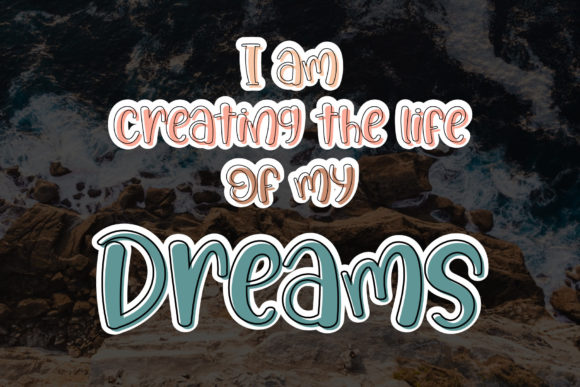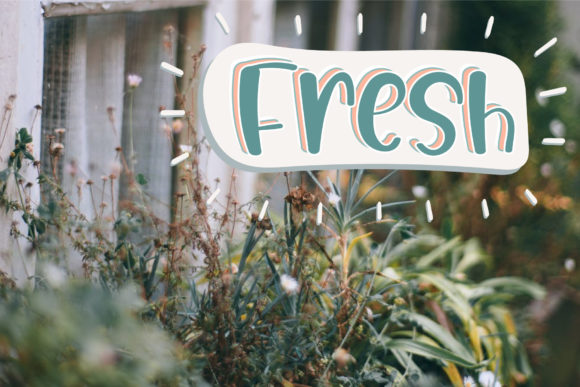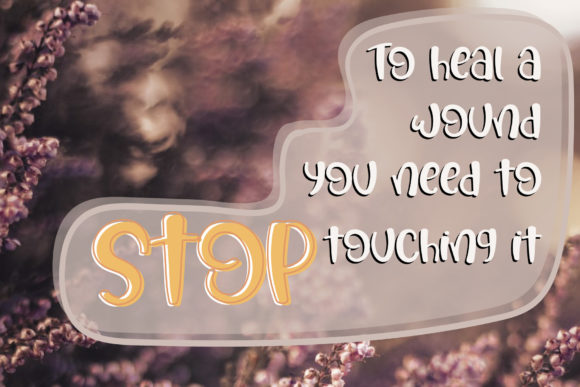
About The Owner Font
The Owner is a friendly script font carefully created with a touch of trendiness. Whether you’re looking for fonts for Instagram or calligraphy scripts for DIY projects, this font will turn any creative idea into a true piece of art!